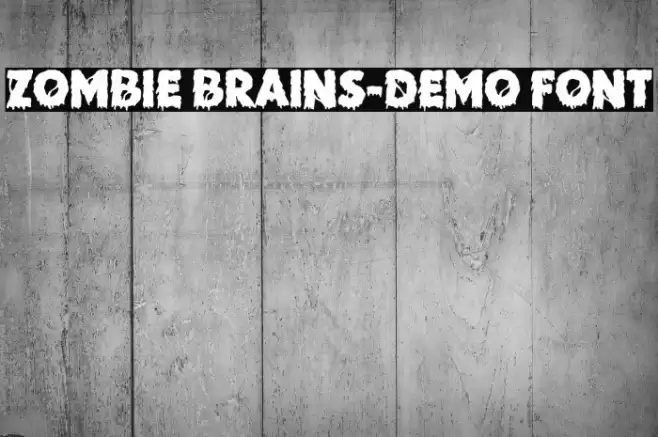
Zombie Brains-DEMO FONT Font
Zombie Brains-DEMO FONT Description
This font features a bold, horror-themed design with letters that appear to be dripping or melting, evoking a spooky, eerie atmosphere. The characters are heavily stylized, with irregular edges and a textured appearance that suggests decay or slime. This unique style makes it ideal for Halloween-themed projects or any design requiring a touch of the macabre. The uppercase and lowercase letters maintain a consistent theme, with numbers and special characters following the same aesthetic, ensuring a cohesive look across all text elements.
A bold, horror-themed font with dripping, eerie characters from Uncategorized fonts.
- Proposed Projects: Ideal for Halloween invitations, horror movie posters, themed event flyers, and spooky merchandise designs.